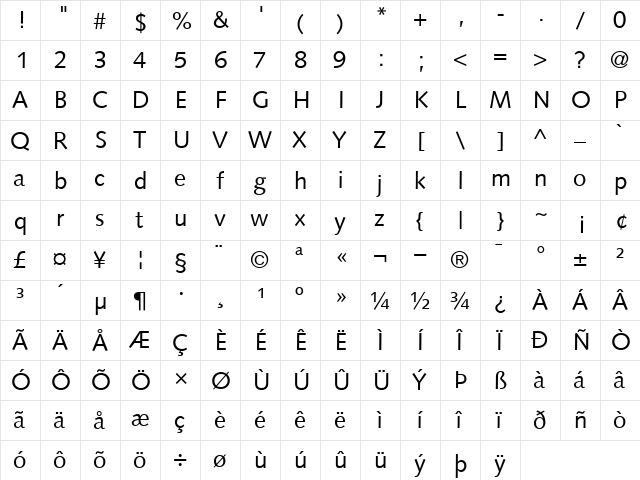
Syntax Roman
Design Context for Syntax Typeface
Syntax is a composed and adaptable typeface that performs quietly and consistently across a wide range of design contexts.